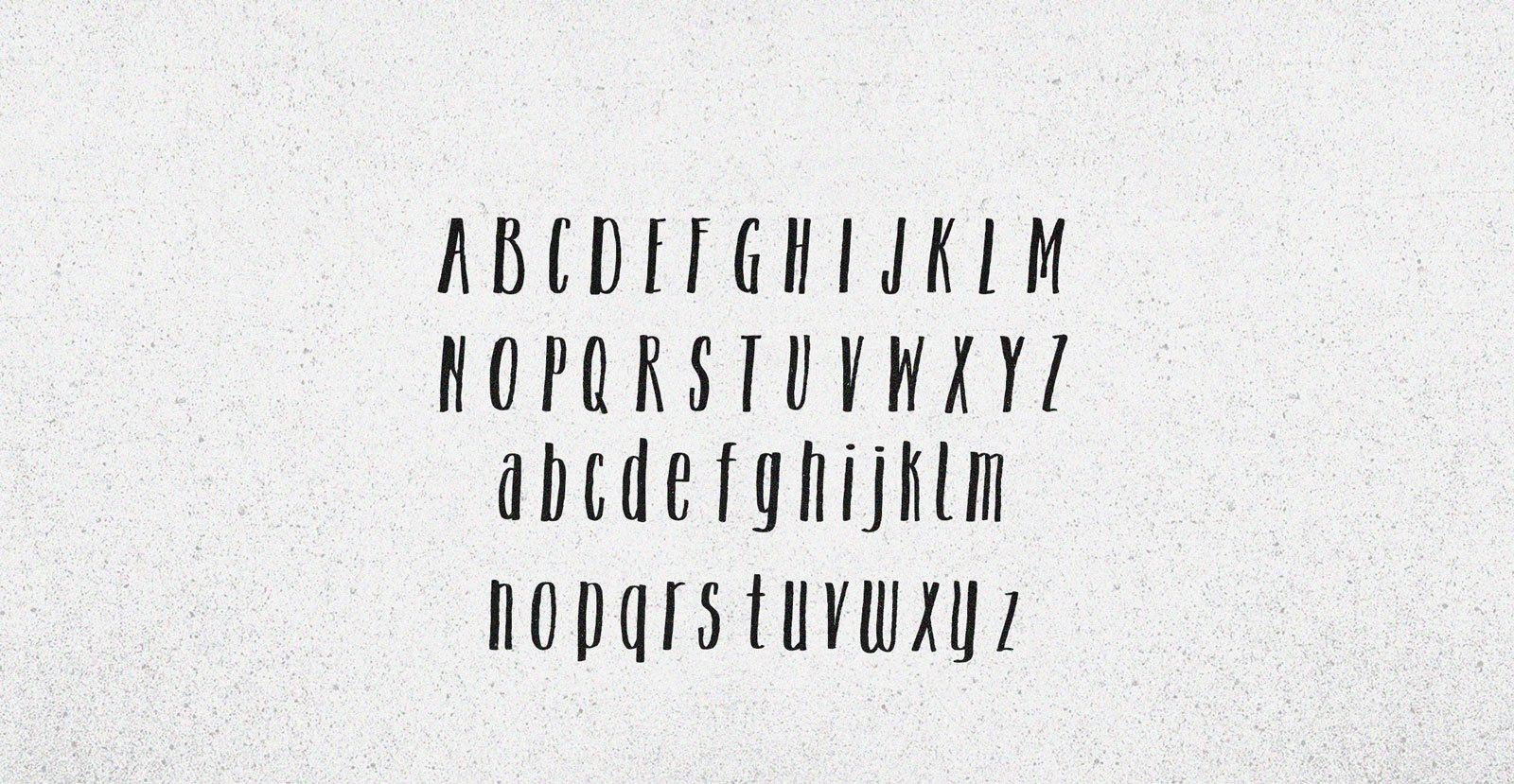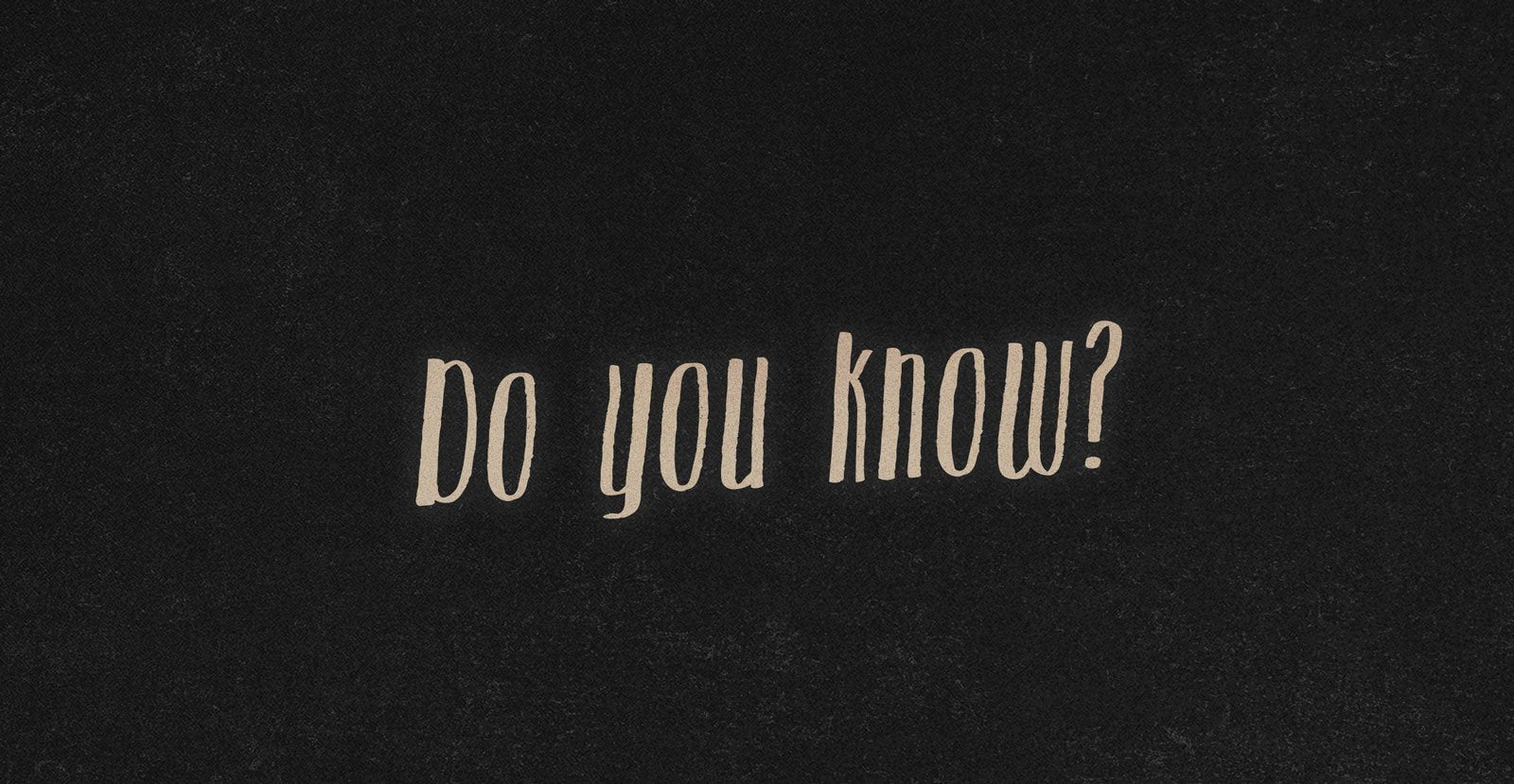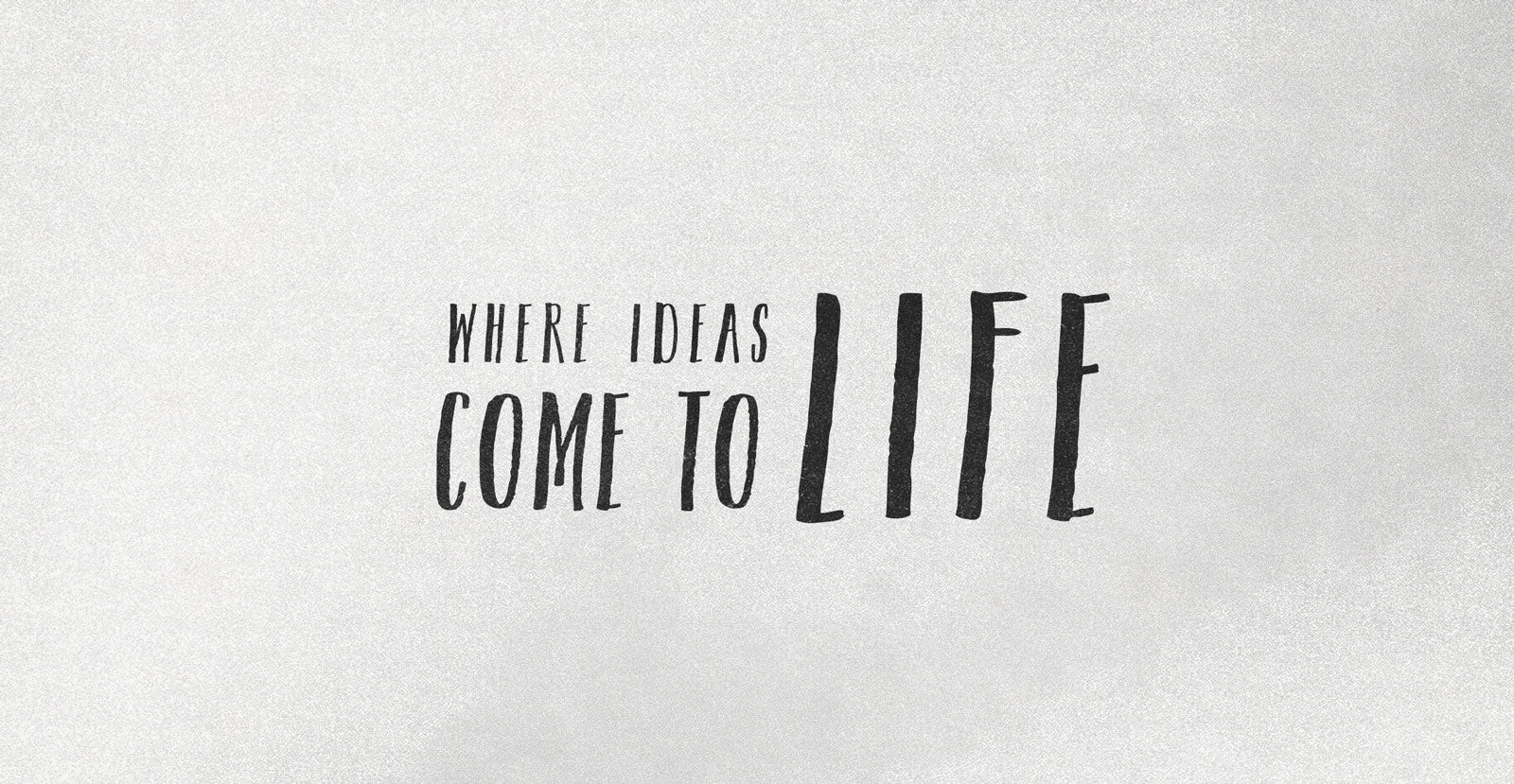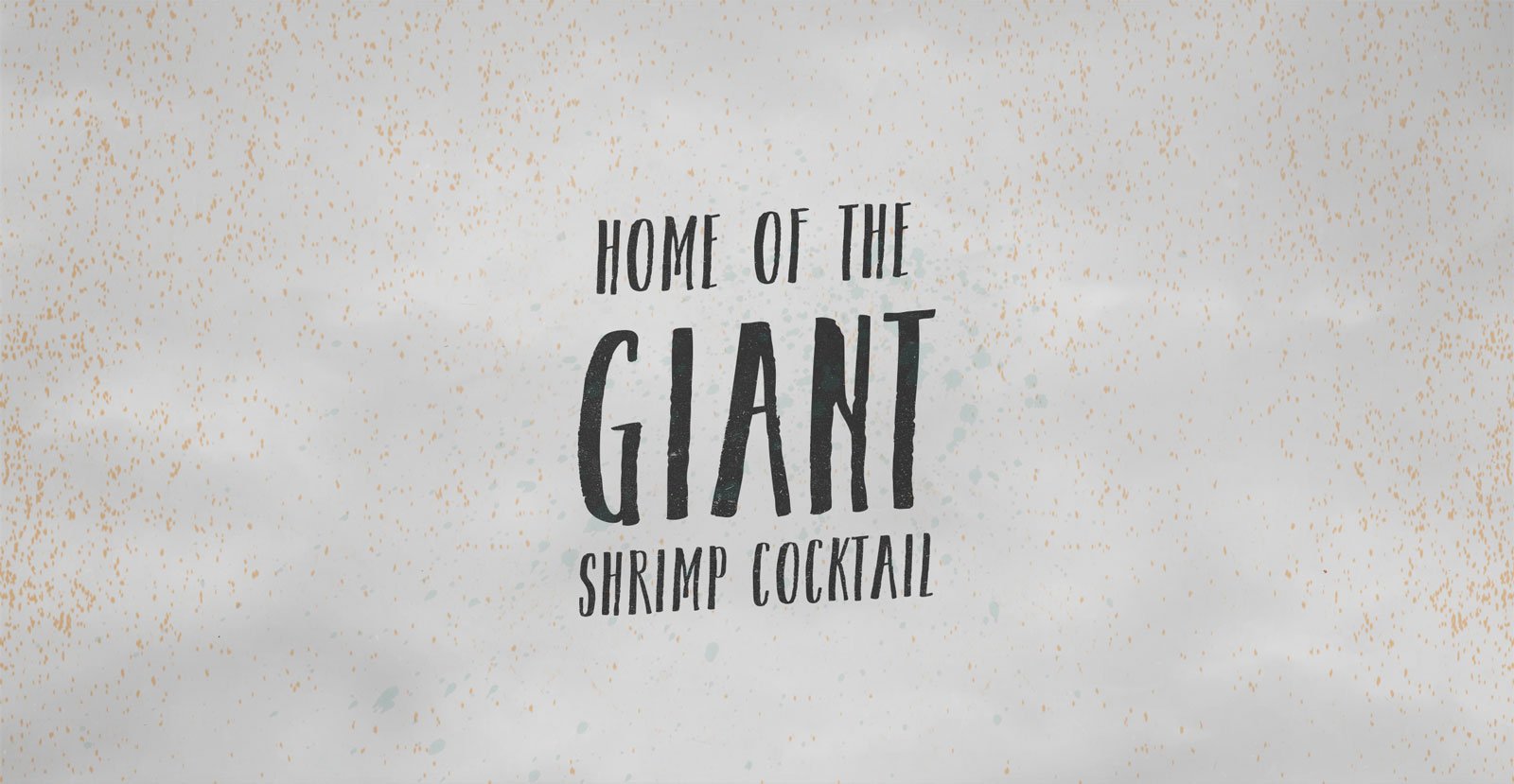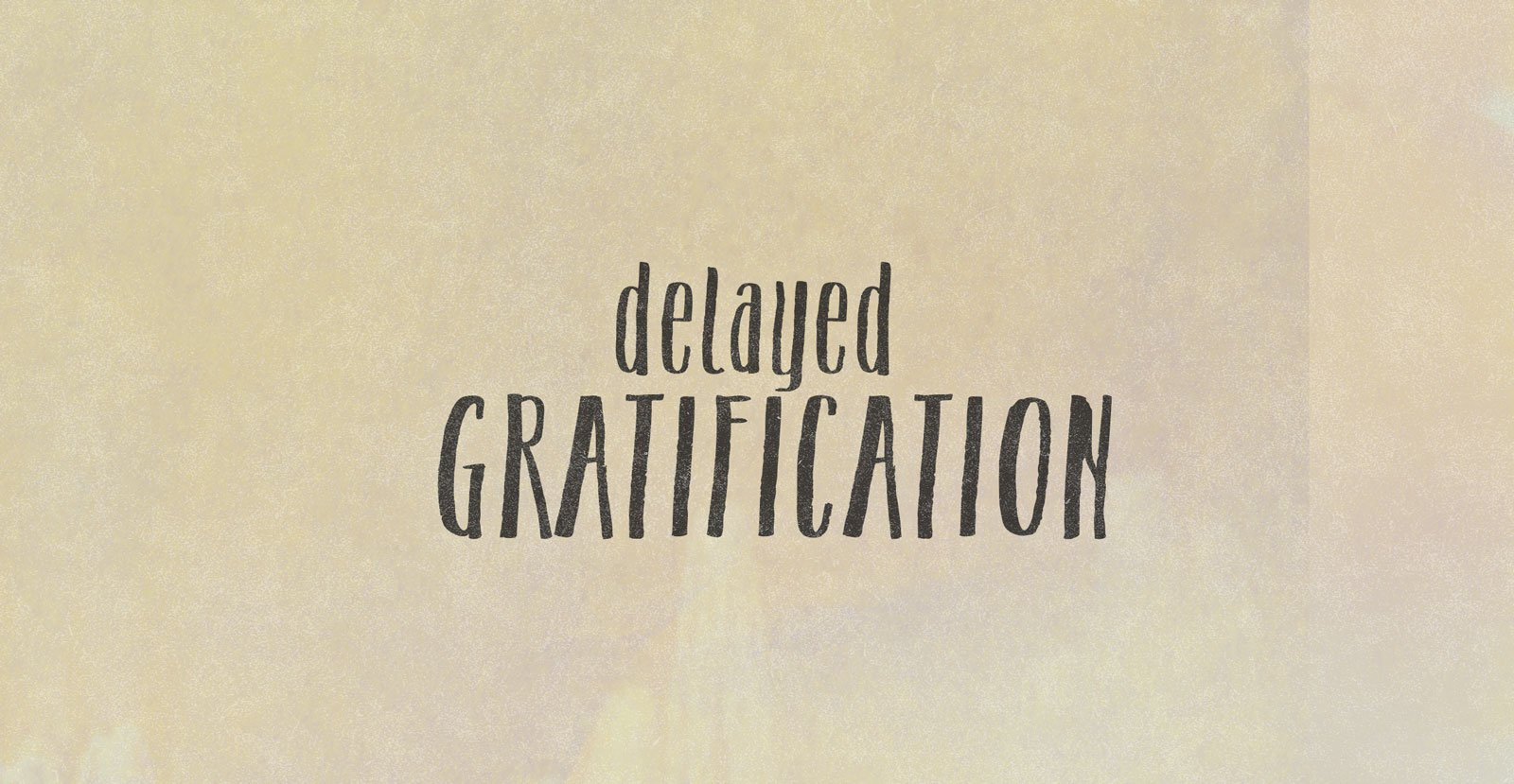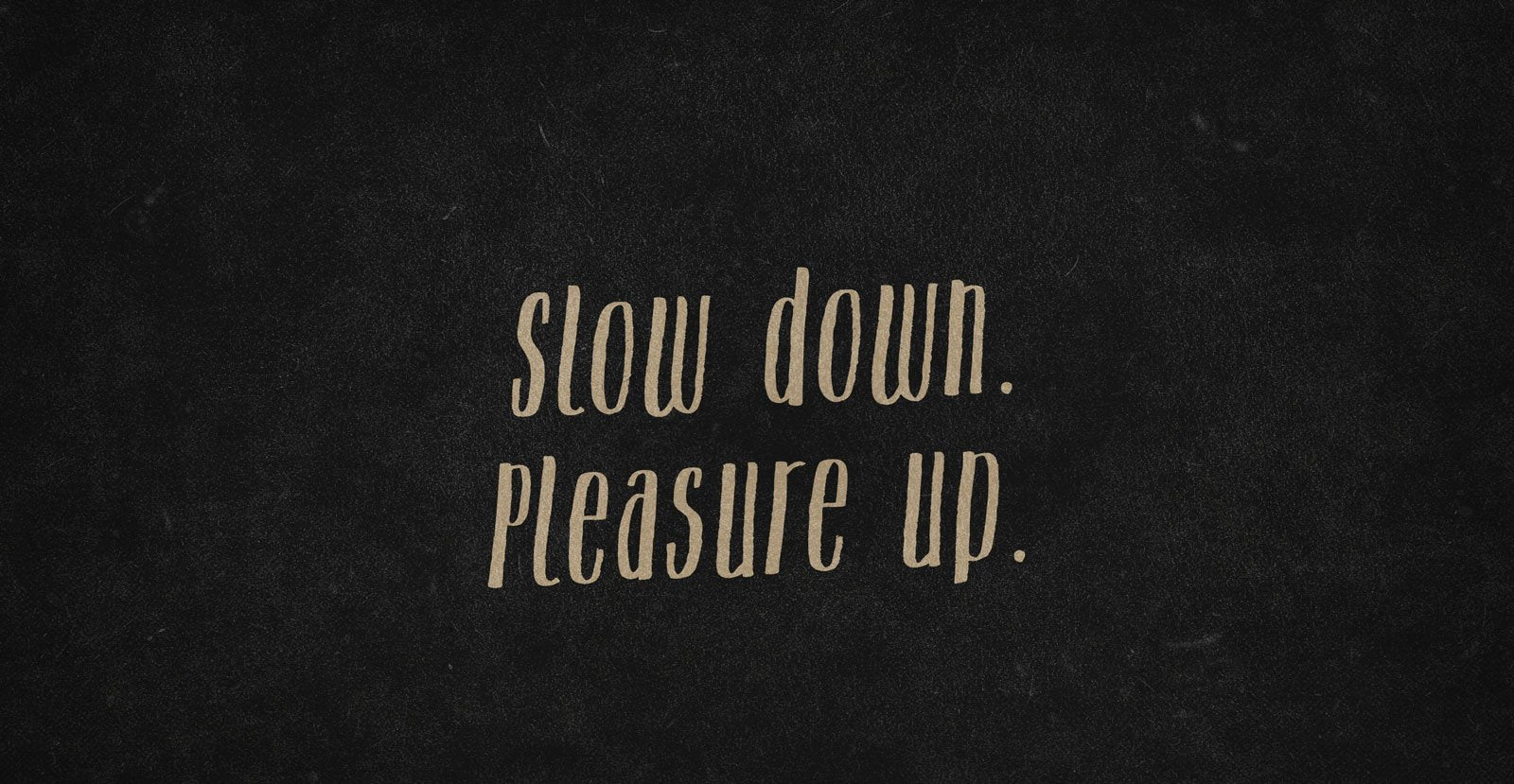
Spot Light
Eyes unimpeded—except by what they are and everything in between everything and them—Spot Light frozen on the event horizon, pinned to a darkened skyline, sinking into a stage that nobody can relate to.